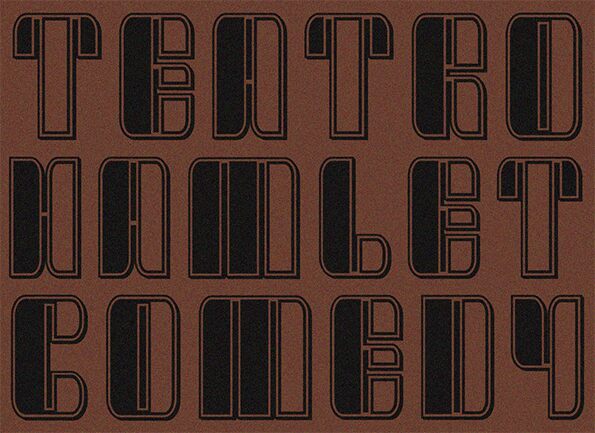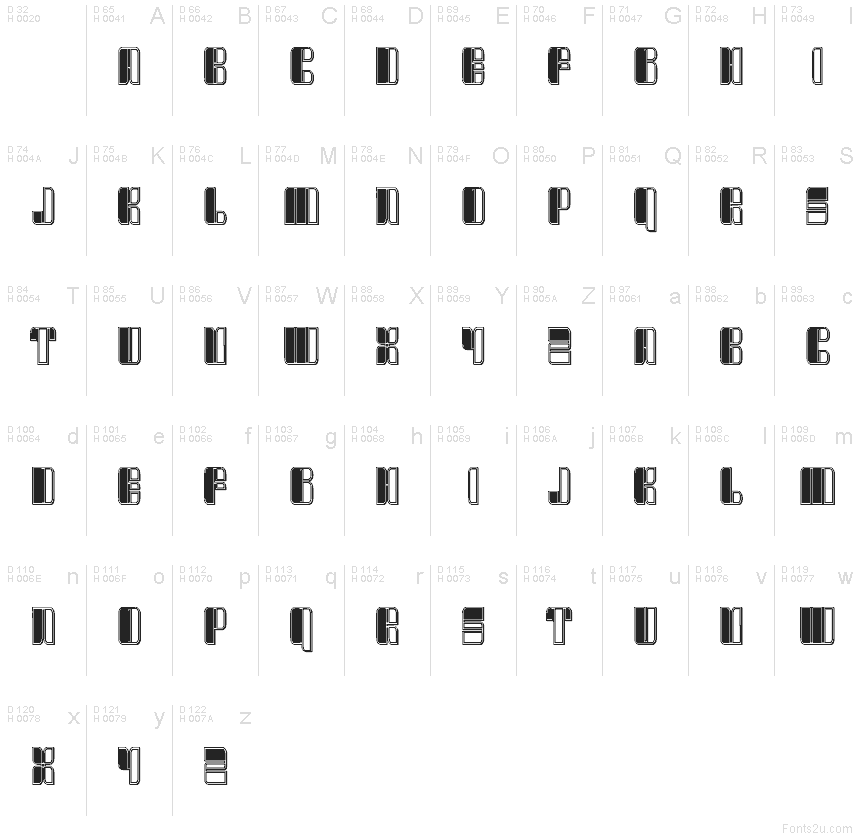
Tragedy Extravagant Regular
Tragedy Extravagant font by Vladimir Nikolic is a free groovy display typeface in the Tragedy family. Tall, tubular letters stack bold black panels inside crisp white outlines, creating a marquee-like shimmer—half psychedelic poster, half vintage theater signage. The rhythm is vertical and punchy, with rounded corners that soften the strong geometry, so headlines feel loud yet playful.
Using Tragedy Extravagant, titles snap to attention on posters, music flyers, album covers, event signage, packaging, and retro branding. Its stripe-and-outline texture adds instant depth without extra artwork, especially at large sizes with modest tracking. Pair this free font with a simple geometric sans for body copy to keep the spotlight on its juicy, layered forms.